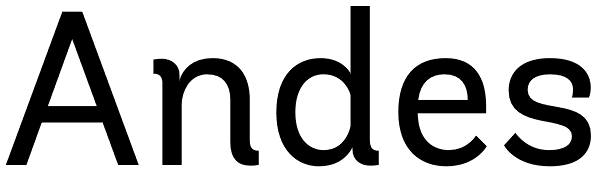
Andes
Andes, designed by Daniel Hernández, is a display typeface that has neo-humanist characteristics. Its different terminals, among other elements, give it a look of mixed typography. Andes is a typeface with 10 Upright weights, 10 Italics & Condensed...